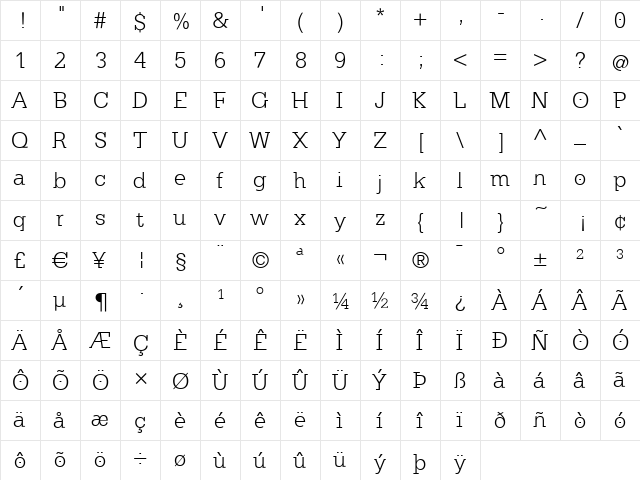
KleinSlabserif-Light Regular
Design Context for KleinSlabserif-Light Typeface
KleinSlabserif-Light features prominent, blocky serifs that give it a confident, grounded presence — equally at home in editorial settings and bold branding work. Its slender proportions lend an understated elegance to any composition.
Works well in editorial design, news publishing, impactful branding, and poster typography.
Pro Tip: Try KleinSlabserif-Light set tight in headlines for a classic editorial feel. Its slab serifs create strong horizontal rhythm that anchors a page layout.